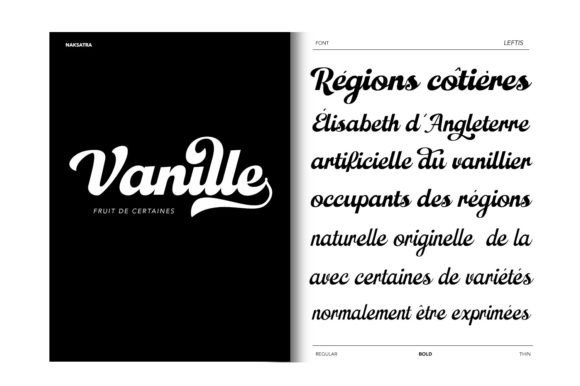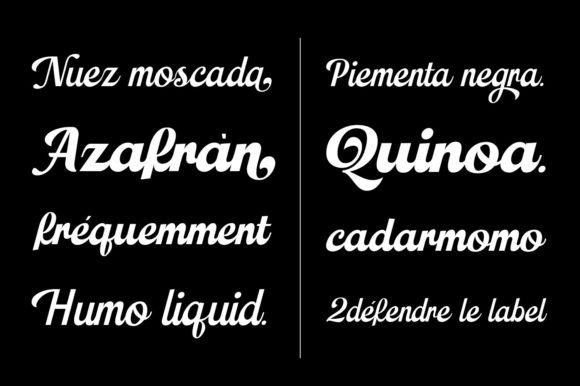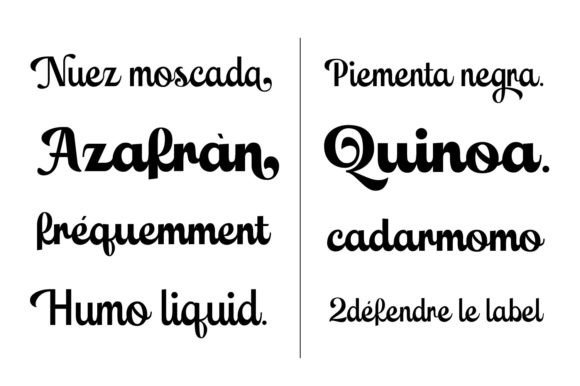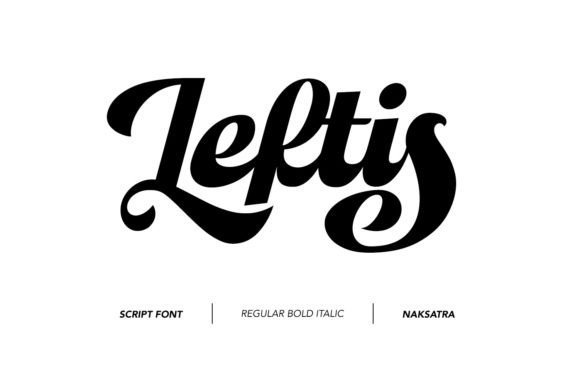
Introduction to Leftis Font
Leftis is a script font family and offers you contrast style between thin, regular, bold, and italic typefaces can give a great touch to your design.
Leftis is a script font family and offers you contrast style between thin, regular, bold, and italic typefaces can give a great touch to your design. This font is multilingual support and also include